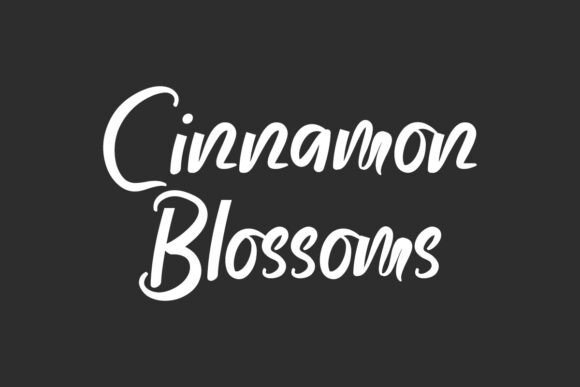
The Perfect Blend of Whimsy and Elegance: Introducing Cinnamon Blossoms Font
Have you ever been working on a design project and suddenly, the perfect font pops into your mind? For me, it was one of those ‘aha’ moments when I stumbled upon the Cinnamon Blossoms Font. Its unique, curly handwriting style immediately caught my attention, and I knew I had to share it with fellow designers.
Cinnamon Blossoms Font is a delightful display font that brings a touch of warmth and personality to any design. With its thick lines and natural look, it’s perfect for creating brand logos, brochures, business cards, and more. Whether you’re a seasoned designer or just starting out, this font is sure to become a go-to favorite. Its versatility and charm make it an invaluable addition to any design toolbox.
Cinnamon Blossoms Font Key Features
- Font Family: Cinnamon Blossoms, Cinnamon Blossoms Italic
- Character Count: 1024 glyphs
- Unique Characteristics: Includes a wide range of ligatures, swashes, and ornaments, as well as a set of hand-drawn icons and flourishes
Cinnamon Blossoms Font Review
I recently had the chance to work with the Cinnamon Blossoms Font, and I’m excited to share my thoughts on this lovely script font.
- Unique charm: The Cinnamon Blossoms Font has a distinctive, whimsical feel that sets it apart from more common script fonts.
- High-quality glyphs: The font’s designer has put a lot of care into creating a wide range of glyphs, including alternate characters and ligatures.
- Beautiful flourishes: The font’s flourishes are delicate and intricate, adding a touch of elegance to any text.
- Not ideal for body text: While the font is perfect for headings and titles, it may be difficult to read in large blocks of body text.
- Limited font sizes: The font’s designer has limited the available font sizes, which may make it difficult to use in certain applications.
Overall, I’m very impressed with the Cinnamon Blossoms Font. Its unique charm and high-quality glyphs make it a great choice for designers looking to add some personality to their projects. While it may not be suitable for every use, I think it’s a great addition to any font collection.
The Cinnamon Blossoms Font is ideal for:
1. Wedding invitations and stationery
2. Branding and marketing materials
3. Custom logos and graphics
4. Fashion and beauty designs